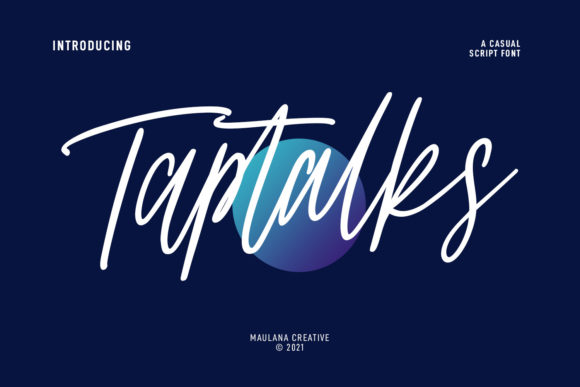
Make Stunning Work with Taptalks Script Font
Every creative project eventually hits a familiar crossroads: finding a typeface that doesn’t just fill space but actually tells a story. You’ve likely experienced the frustration of scrolling through endless font libraries, looking for something that feels both personal and professional. The search often ends when you find a premium font with genuine character, and that’s precisely where Taptalks Script enters the conversation. This isn’t just another script font; it’s a tool designed for modern creators who want to inject energy and authenticity into their work without sacrificing clarity.
The Anatomy of Taptalks: Slanted, Casual, and Energetic
At first glance, Taptalks Script presents itself as a slanted casual script. This is a crucial distinction. Unlike rigid, formal calligraphy or messy, illegible grunge fonts, Taptalks strikes a balance that is difficult to achieve. The "slanted" aspect implies motion and urgency, making it perfect for dynamic branding, while the "casual" descriptor ensures it remains approachable and friendly rather than stuffy.
The visual DNA of this typeface relies on its lights contrast stroke. For those less familiar with typographic anatomy, this means the variation between the thick and thin parts of the letters is gentle and fluid. High-contrast fonts can sometimes feel sharp or aggressive, but the low-contrast nature of Taptalks gives it a soft, organic feel. It mimics the natural flow of ink on paper, making it an excellent choice for projects that require a human touch.
Furthermore, the font features a fun character that is hard to fake. It avoids looking like a digitized version of handwriting and instead embraces the quirks of natural penmanship. This is largely due to the inclusion of natural ligatures. When you type certain letter combinations, they connect in ways that mimic actual writing, avoiding the awkward gaps or collisions often seen in lower-quality script fonts. This attention to detail elevates Taptalks from a simple display font to a sophisticated design asset.
Strategic Applications: Where Taptalks Shines Brightest
Understanding the visual style is one thing; knowing how to deploy it effectively is another. As a creative font, Taptalks Script is versatile, but its strengths lie in specific areas where emotional connection and visual hierarchy are paramount.
Branding and Logo Design
For logo design, legibility and distinctiveness are non-negotiable. Taptalks Script offers a solution for brands that want to appear modern, approachable, and energetic. It works exceptionally well for lifestyle brands, boutique shops, coaching businesses, and creative agencies. Because it is a modern typography choice, it avoids the dated look of 90s script fonts. When used for a wordmark, the natural ligatures create a seamless flow that makes the brand name look like a cohesive unit rather than a collection of individual letters.
Digital Presence and Social Media
In the realm of social media graphics, grabbing attention in a split second is the goal. The slanted, dynamic nature of Taptalks makes it ideal for Instagram quotes, YouTube thumbnails, and Pinterest pins. It adds a layer of personality that standard sans serif font options often lack. For web design, while it shouldn't be used for body text, it serves as a stunning accent font for headers, hero sections, or call-to-action buttons, guiding the user's eye effectively.
Publishing and Editorial Design
Authors and publishers often struggle to find a creative font for book covers that feels fresh. Taptalks fits the bill perfectly for editorial design, particularly for genres like romance, self-help, young adult fiction, or lifestyle magazines. It can also be used effectively in movie titles or event posters where the goal is to evoke excitement and anticipation. The "fun character" of the font helps set the mood before the audience even reads the subtitle.
Packaging and Physical Products
Physical goods require packaging that communicates value instantly. Whether it’s a coffee bag, a candle label, or a clothing tag, Taptalks adds a handcrafted feel to packaging design. It bridges the gap between the artisanal and the professional, making products feel curated and special.
The Psychology of Style: Influencing Audience Perception
Typography is silent communication. The font you choose influences how your audience perceives your brand identity. Using a handwritten font like Taptalks Script does specific psychological heavy lifting.
First, it fosters brand recognition. In a sea of geometric sans-serifs and rigid serifs, a fluid, slanted script stands out. It creates a visual signature that audiences can recall later. Second, it enhances audience engagement. Human eyes are drawn to organic shapes. The irregularities in Taptalks—the way a tail swoops or a dot sits slightly off-center—mimic human imperfection, which builds trust and relatability.
However, this influence must be managed regarding readability. While Taptalks is designed to be legible, it is still a script. It influences visual hierarchy by drawing the eye to the largest text first. If used correctly, it establishes a clear structure: the script font grabs attention, and a supporting serif font or sans serif font delivers the detailed information. This pairing creates a professional brand identity that feels both polished and personal.
Taptalks Script is more than just a collection of letters; it is a versatile tool for visual storytelling. By leveraging its slanted, casual energy and pairing it thoughtfully, you can create designs that resonate deeply with your audience. Whether you are building a brand identity from scratch or refreshing your social media graphics, this font offers the perfect blend of professionalism and personality.